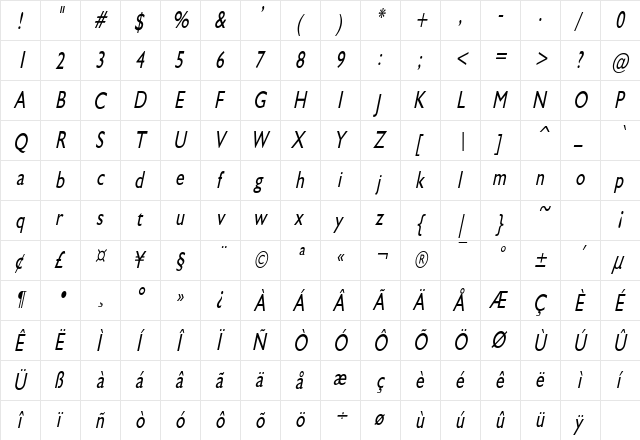
GibraltarCondensed Italic
Design Context for GibraltarCondensed Typeface
GibraltarCondensed is a composed and adaptable typeface that performs quietly and consistently across a wide range of design contexts. Its italic angle brings a sense of urgency and motion to the letterforms. Its narrow stance lets it pack a punch even in space-constrained designs.
Pro Tip: Use GibraltarCondensed for emphasis, pull quotes, and subheadings where its slanted energy can add rhythm to the layout.